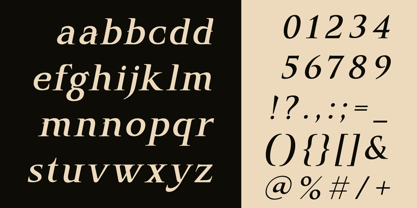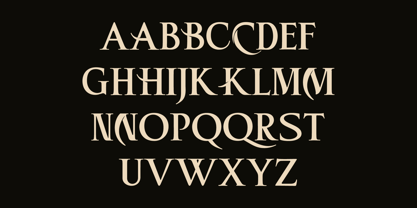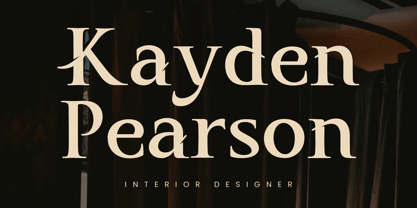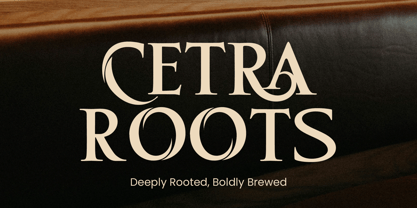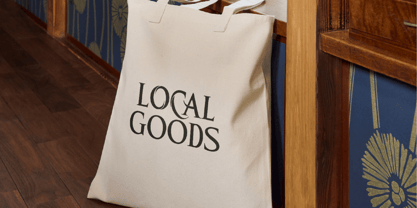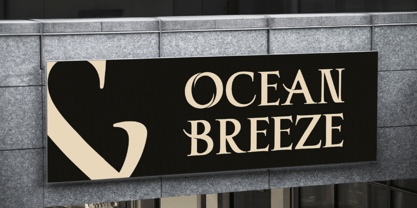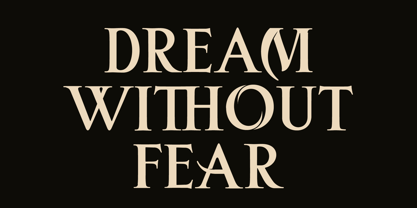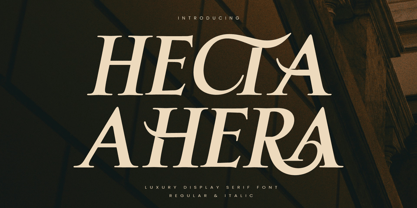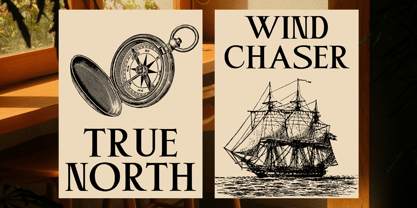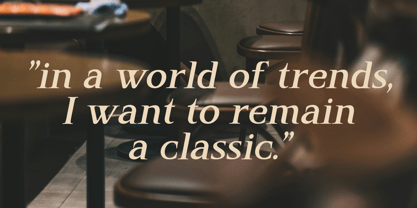
Hecta Ahera
The Hecta Ahera Font Family was designed by Randi Irvan and published by Rvandtype. Hecta Ahera contains 2 styles and family package options. More about this family
Enter the serene domain of Hecta Ahera, a lavishly constructed font that conveys an atmosphere of quiet sophistication and enduring tradition. Reminiscent of tranquil libraries and the polished marble vestibules of landmark heritage hotels, Hecta Ahera embodies the unassuming elegance inherent in true luxury. This font communicates not with a shout, but with a quietly confident whisper, making it ideal for branding, editorial design, and upscale web applications. Crafted for those who appreciate that real opulence is often understated yet deeply felt, Hecta Ahera features a range of weights and styles, enhancing its versatility for various design needs.